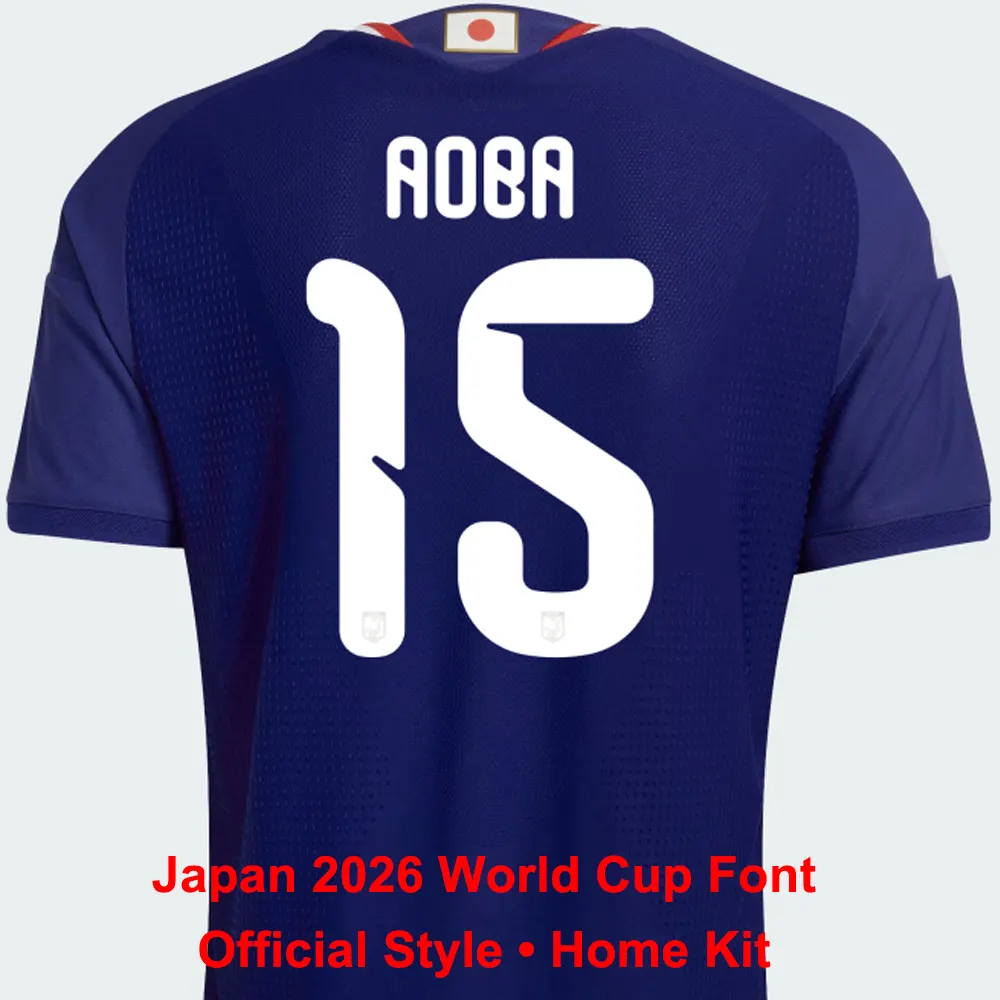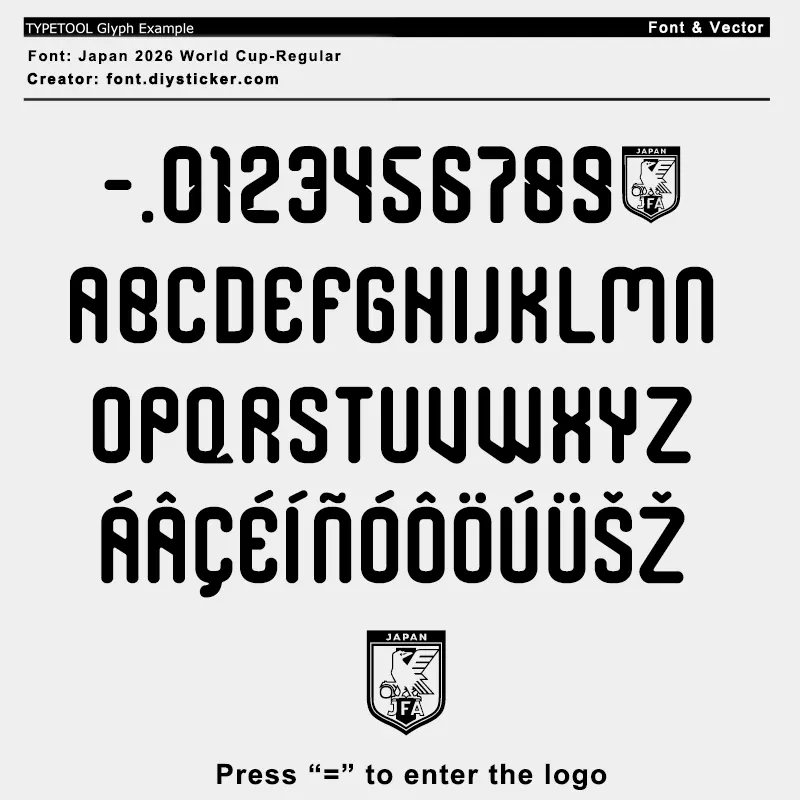
Get the official-style Japan 2026 World Cup font for all your custom football projects! This complete vector pack includes TTF, OTF, AI, CDR, and PDF files, perfect for custom jerseys, prints, graphics, and fan merchandise. Features the iconic modern rounded style used on Japan’s 2026 home kit, with full alphanumeric characters and JFA logo support.
Elevate your custom Japan national team gear with the official-style Japan 2026 World Cup home kit font — the exact modern, rounded typeface used on Japan’s 2026 home jersey, including the iconic #15 Aoba print. This all-in-one vector pack is designed for football fans, designers, and creators, with every file format you need for professional-quality custom work.
🎨 Japan 2026 World Cup Font Features
• Official 2026 Home Kit Style: Matches the sleek, rounded typography on Japan’s 2026 World Cup home jersey
• Full Character Set: Complete uppercase A-Z, numbers 0-9, accented characters, and punctuation
• JFA Logo Integration: Built-in Japan Football Association (JFA) emblem for authentic jersey printing